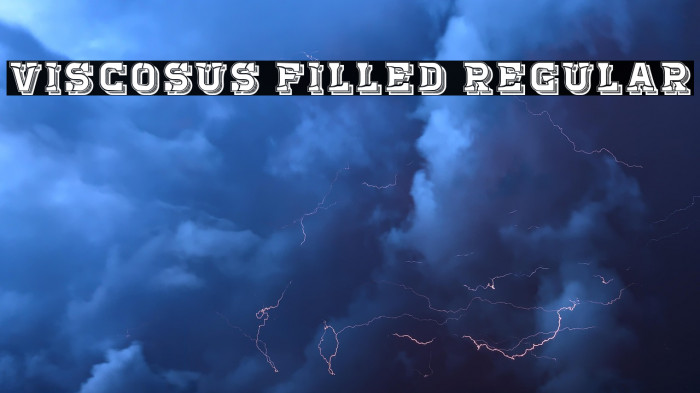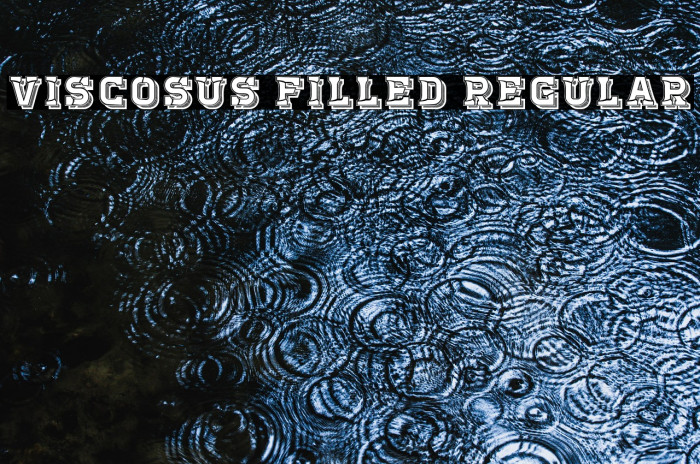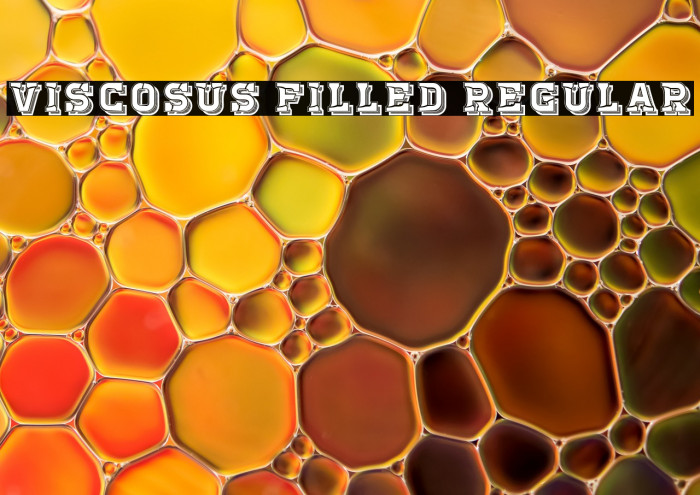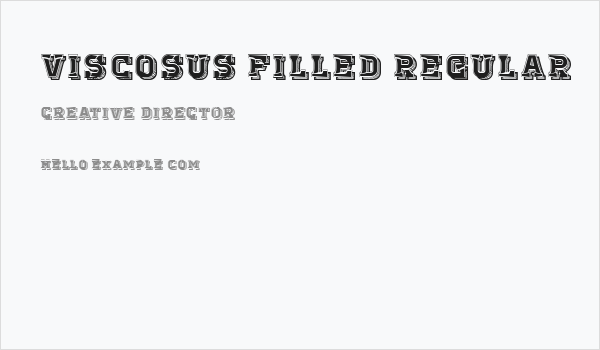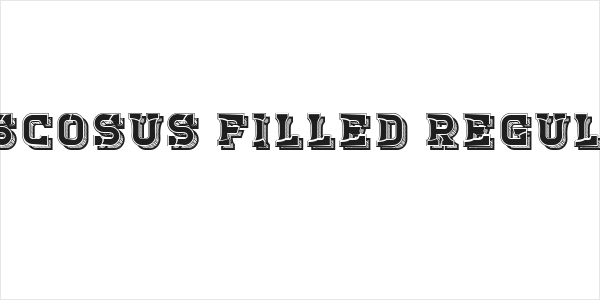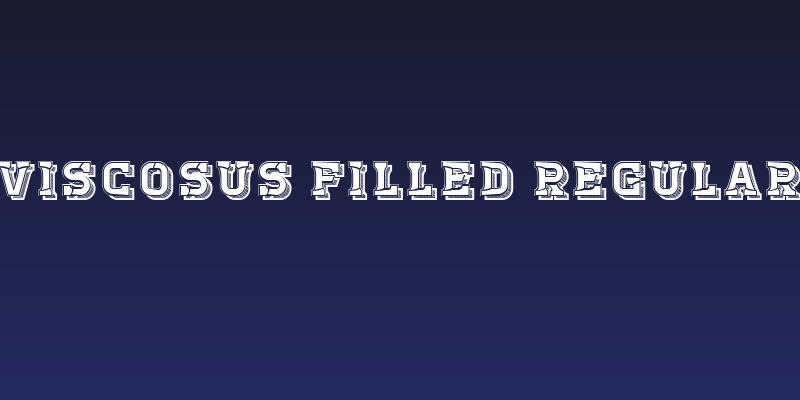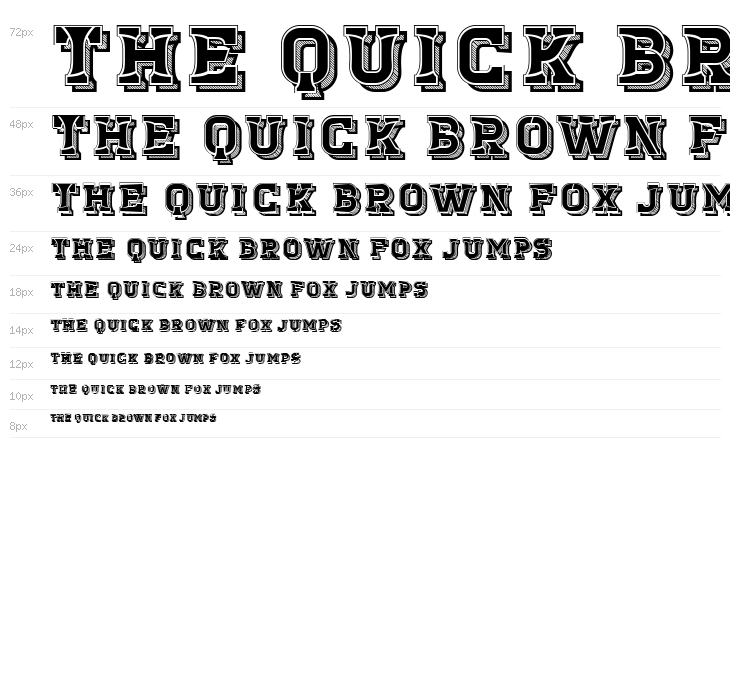
Viscosus Filled Regular Font
Viscosus Filled Regular Description
This font features a bold, decorative style with a strong presence. Each character is filled with intricate detailing, giving it a three-dimensional appearance. The letters are outlined with a thick border, enhancing their visibility and impact. The design is reminiscent of vintage signage, with a modern twist that makes it suitable for contemporary projects. The overall look is both playful and assertive, making it ideal for eye-catching designs. The font maintains consistent proportions across all characters, ensuring readability while still offering a unique aesthetic.
| Overall Style | Vintage, Modern |
| Proposed Projects | Ideal for posters, branding, headlines, and any project requiring a strong visual impact. |